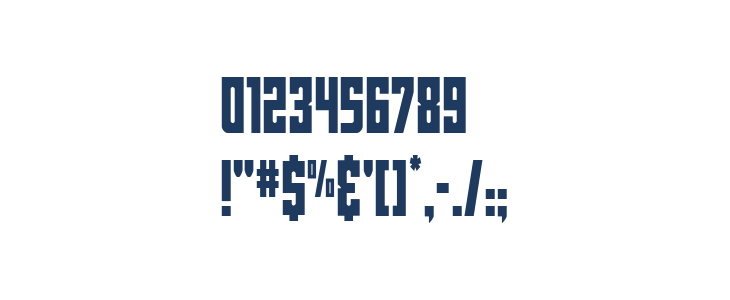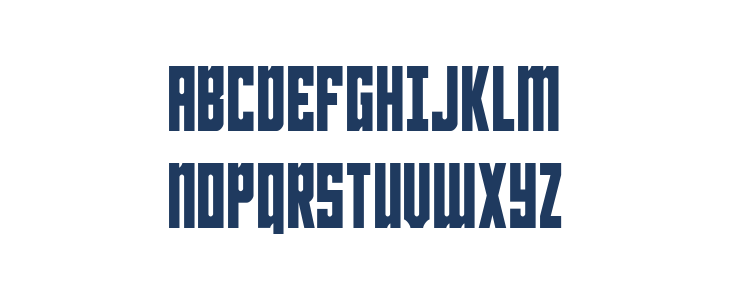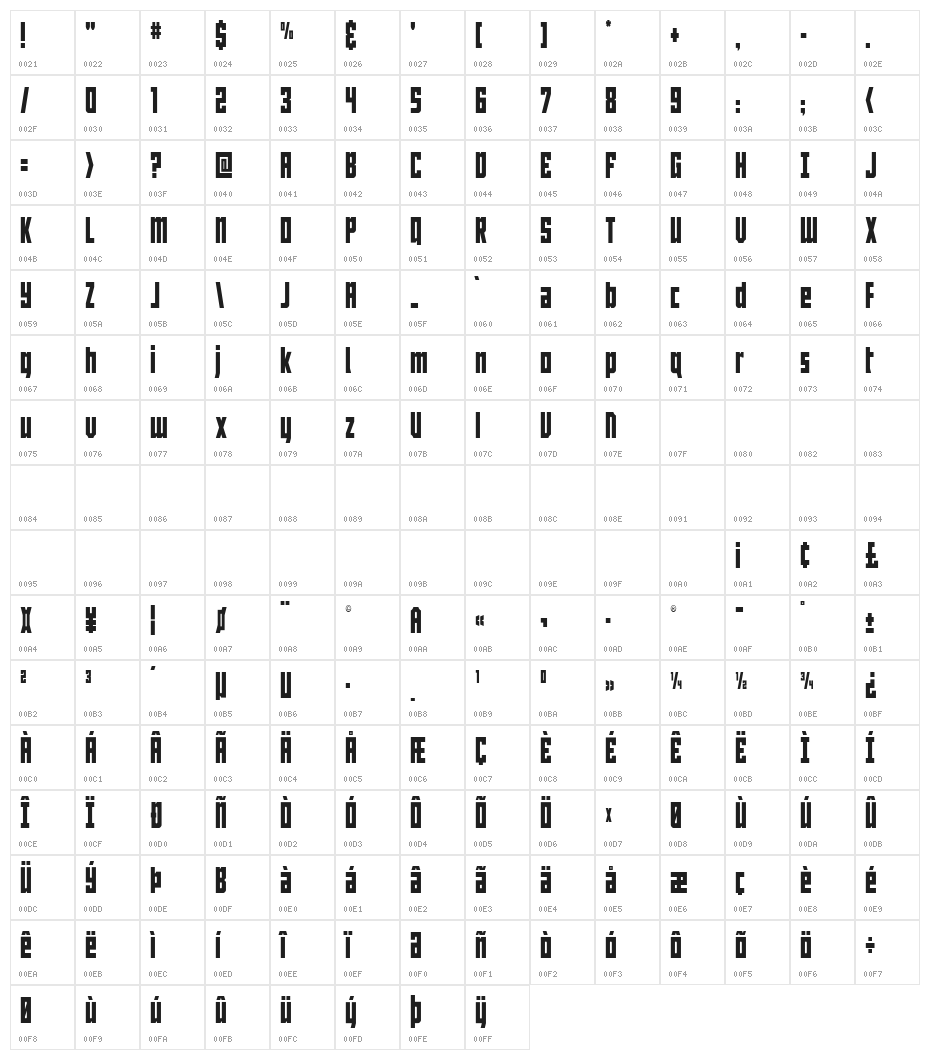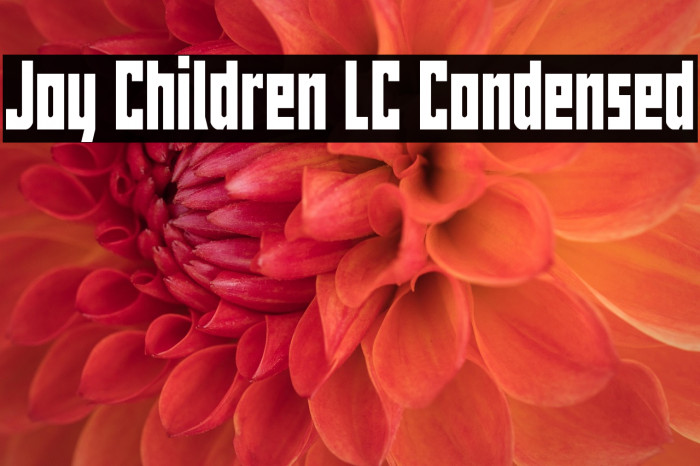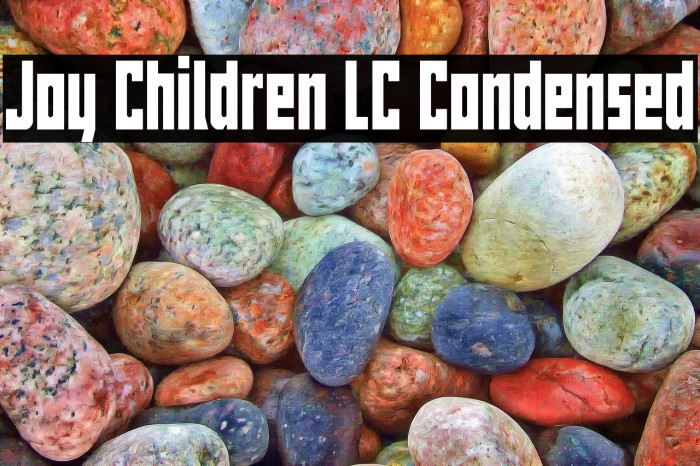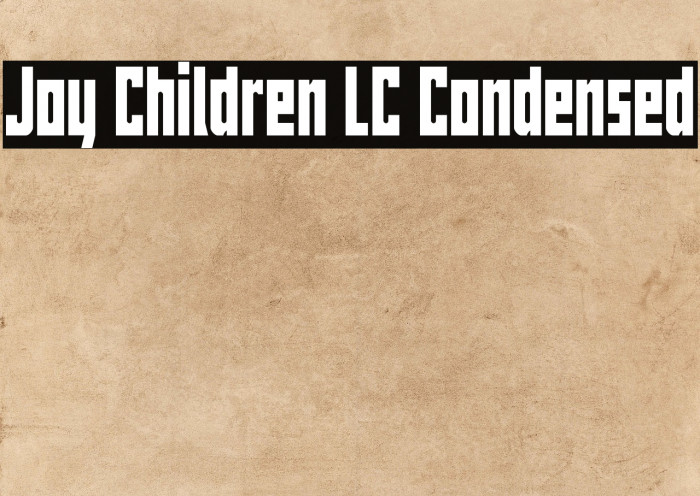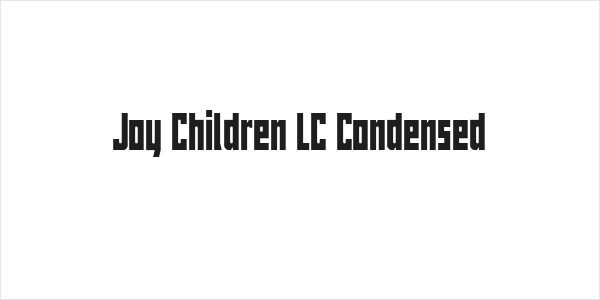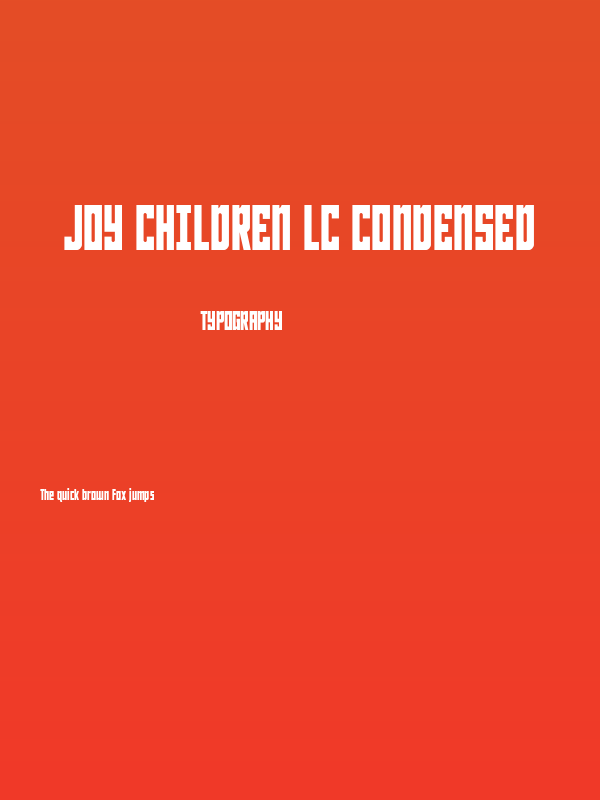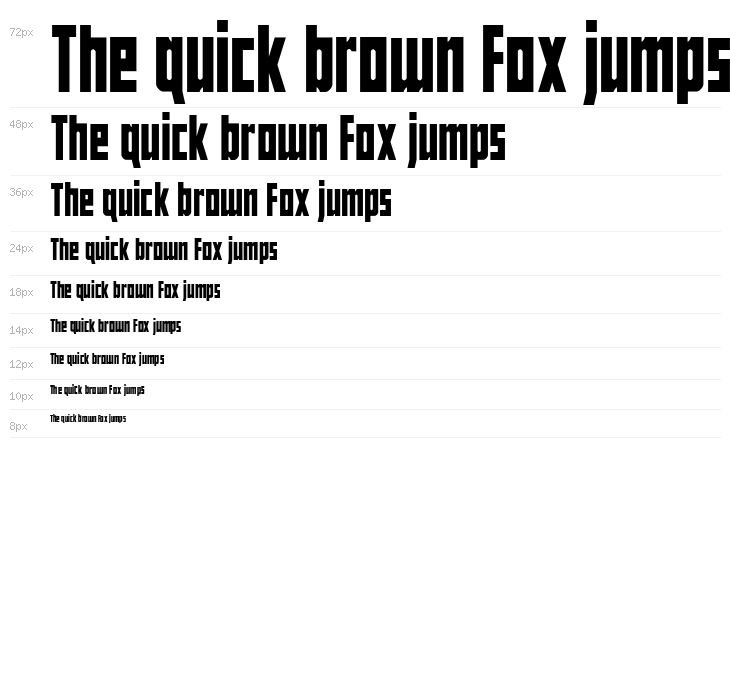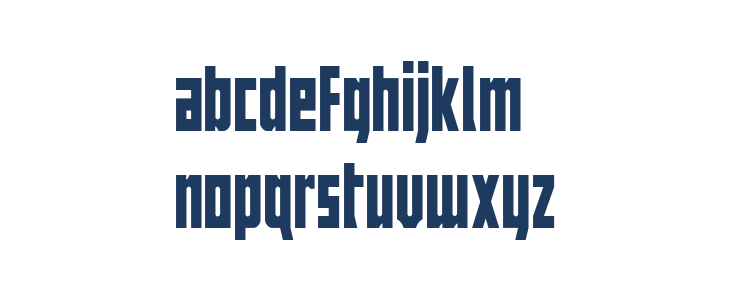
Joy Children LC Condensed Font
Joy Children LC Condensed Description
Bold, blocky, geometric sans-serif font with a pixelated, digital appearance.
| Overall Style | Modern, Digital, Tech-inspired |
| Use Case | Headlines, Logos, Digital displays |